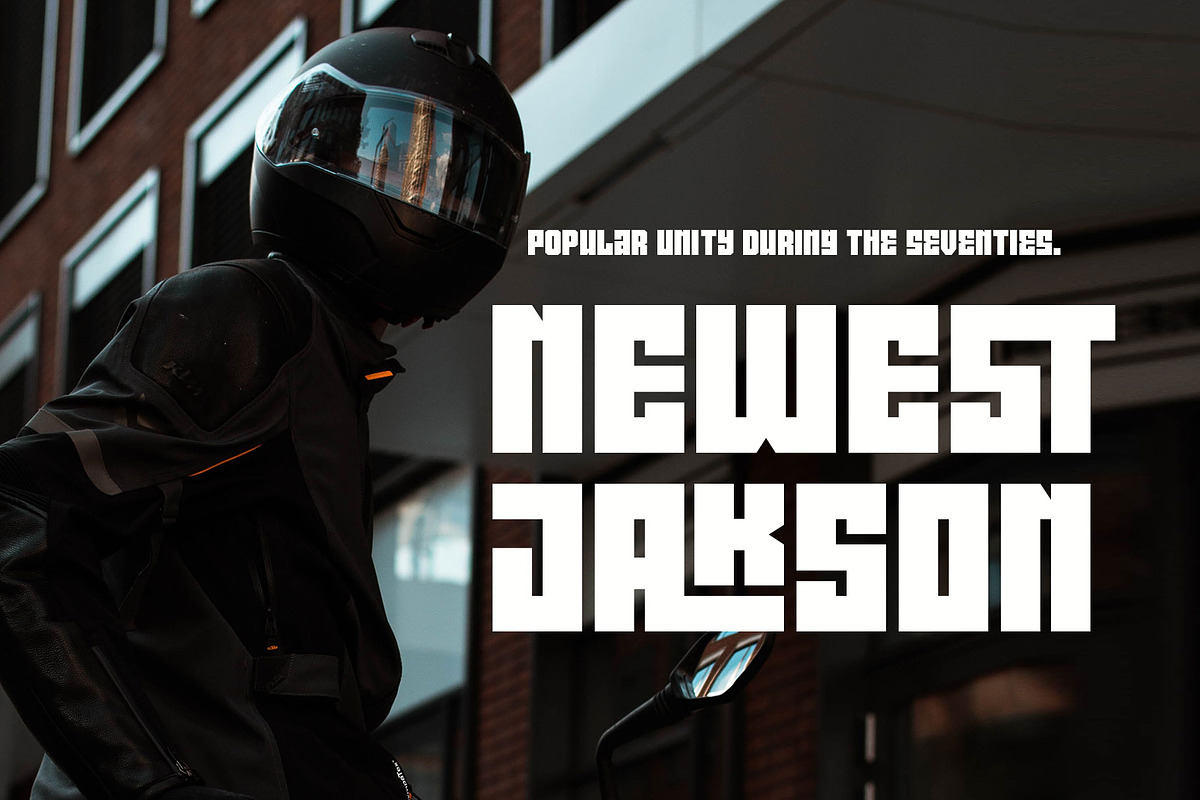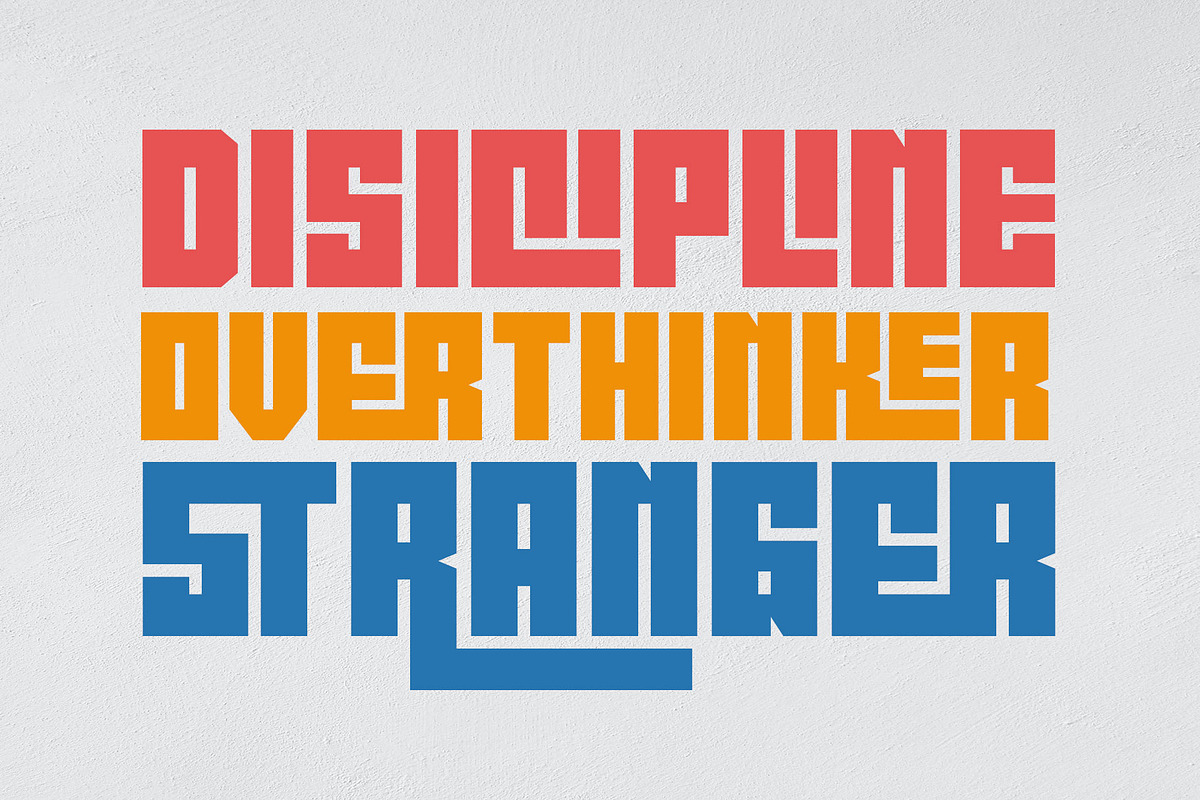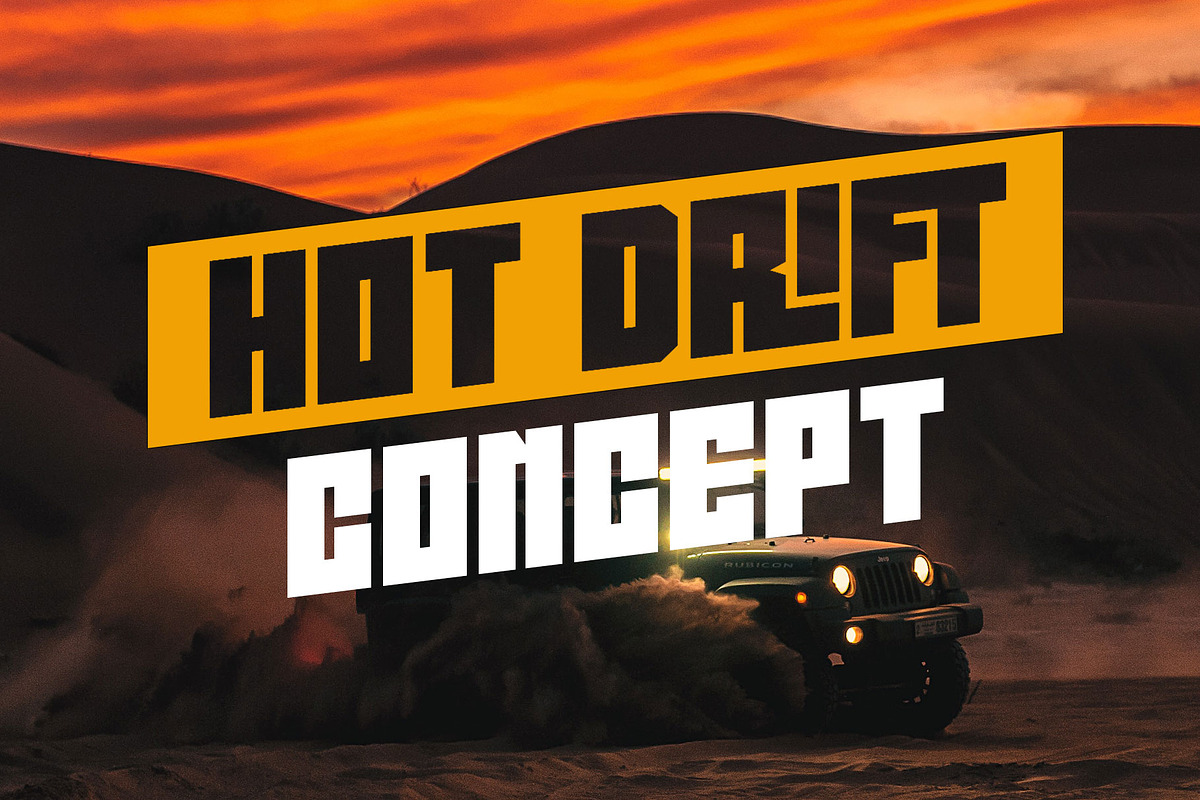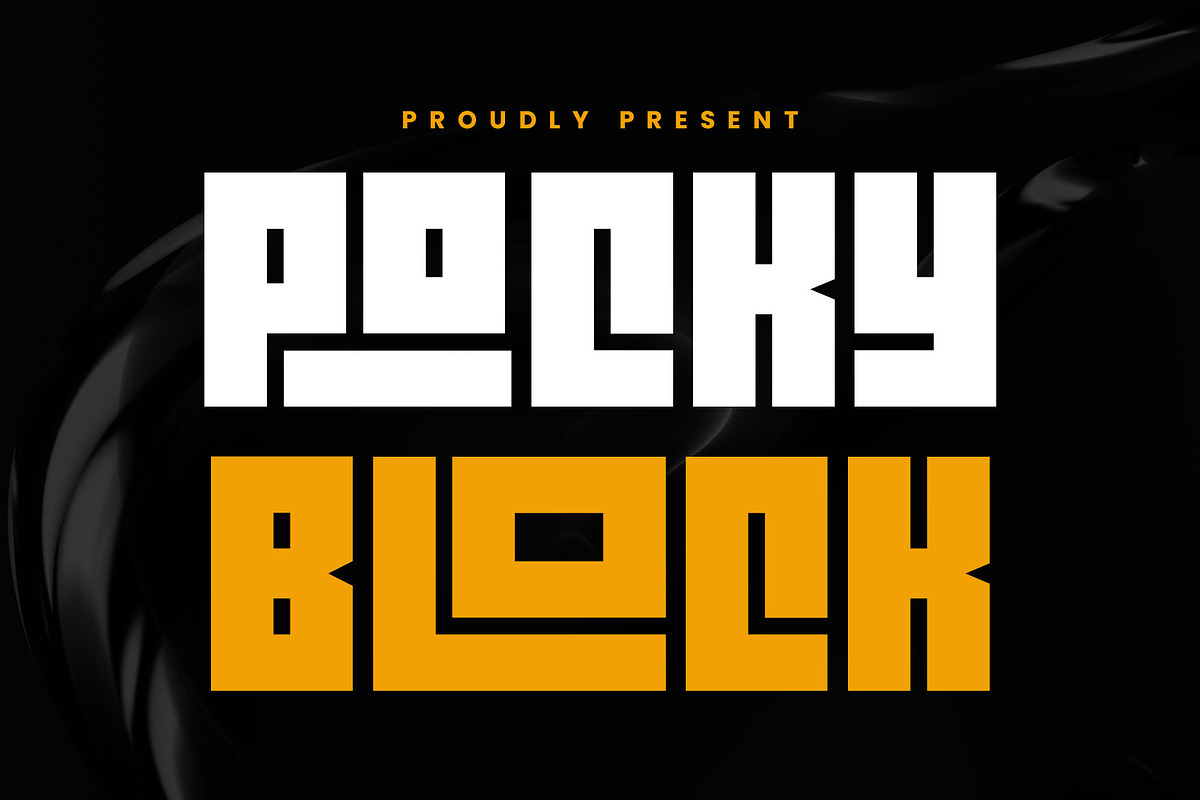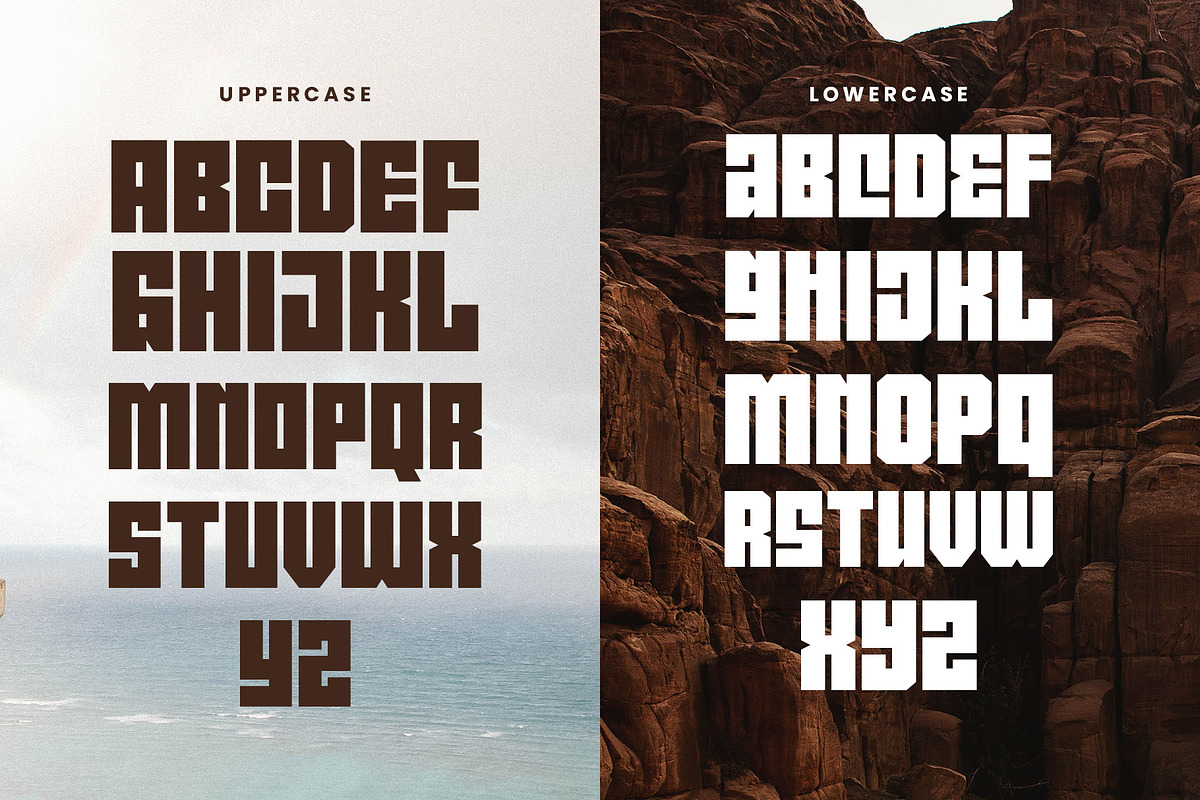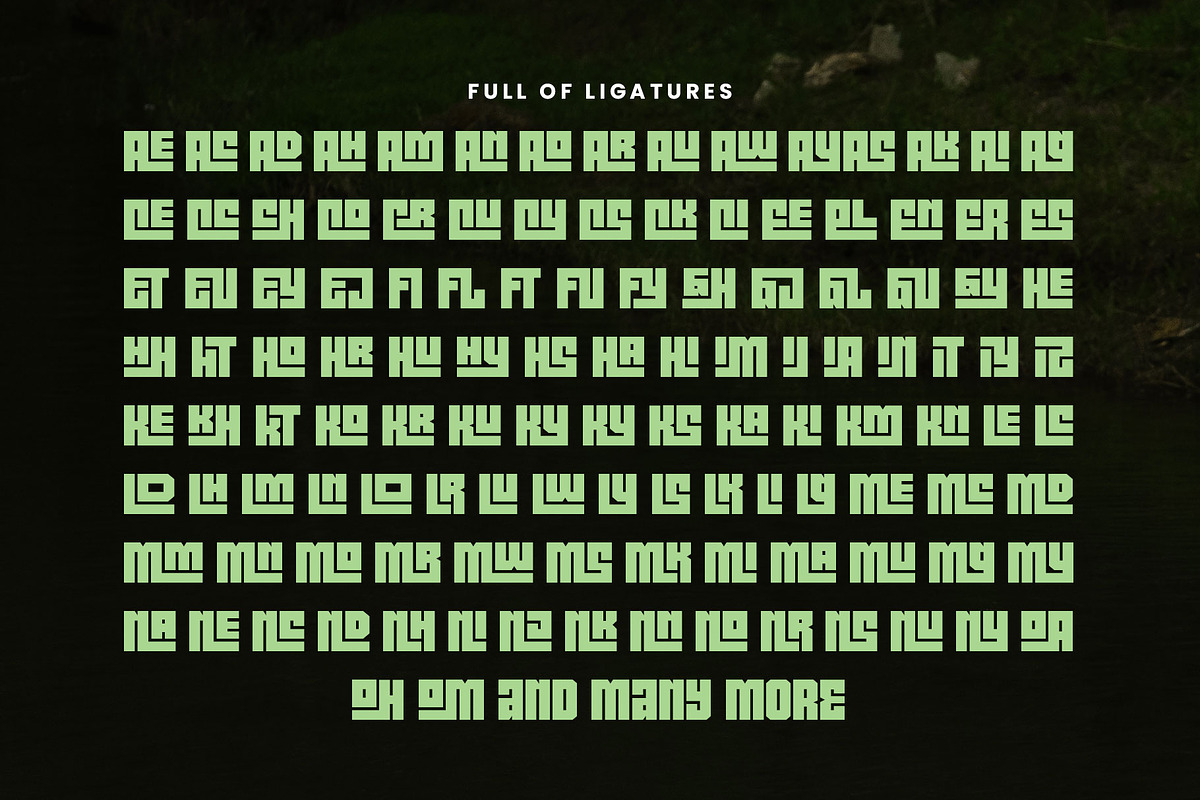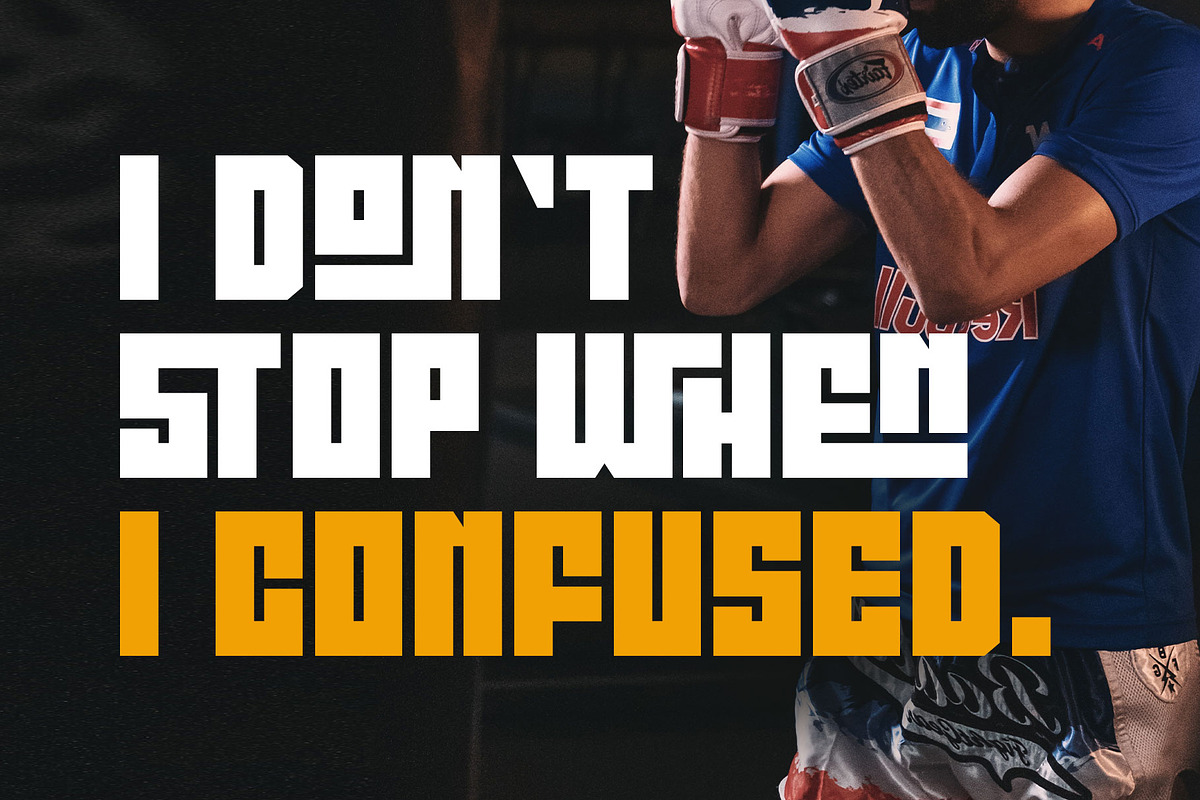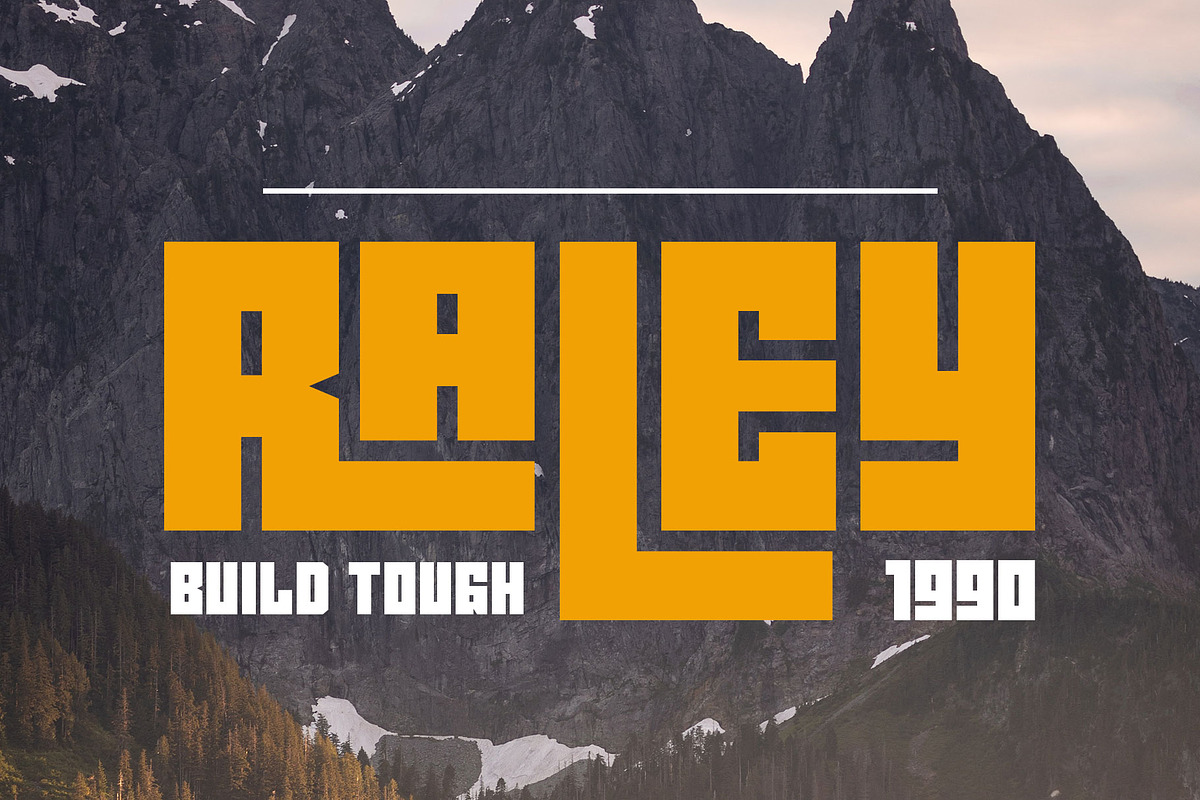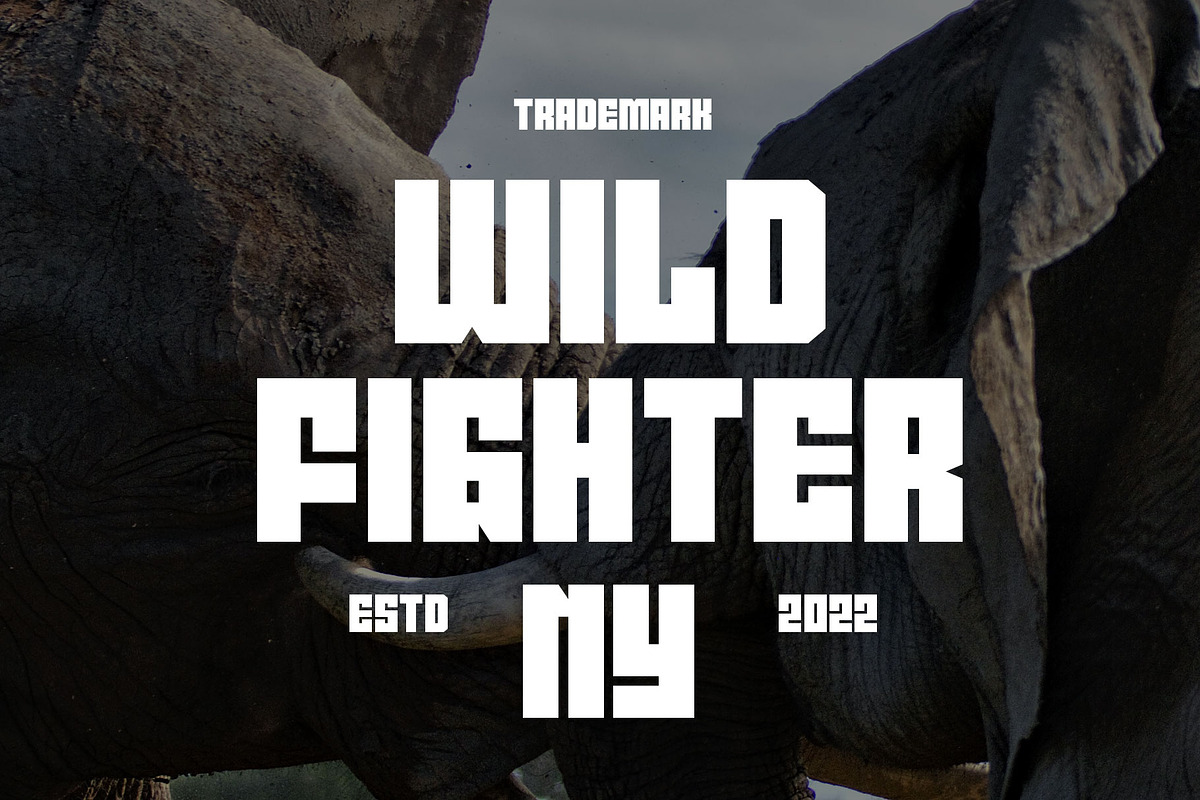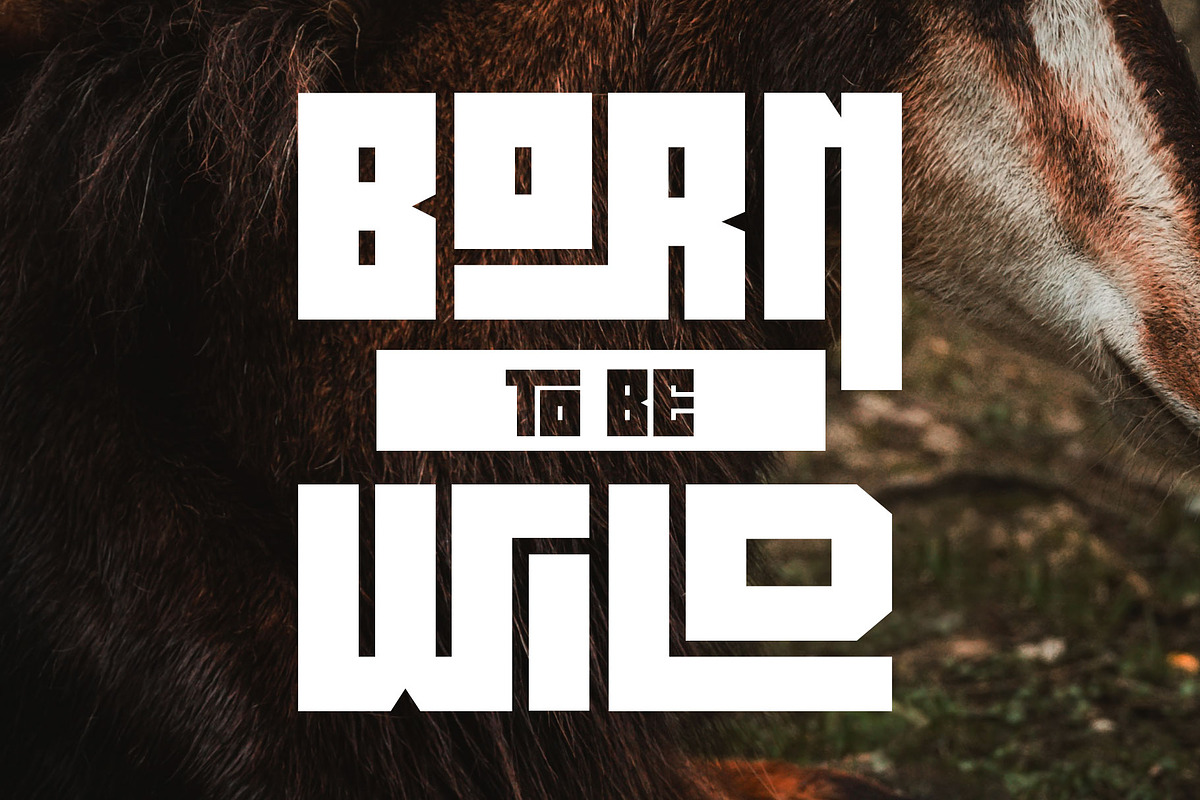
Pocky Block
Introducing Pocky Block, a font that's bold and blocky with elegant and modern design. This font exudes a sporty, assertive, and daring vibe, making it a perfect fit for designs with sports, adventure, or futuristic themes. It's great for stickers, movie posters, flyers, displays, logos, motion graphics, advertising, and more.
Pocky Block comes in two styles: Regular and Slanted. The Slanted style highlights a spirit of enthusiasm, speed, and confidence. This thick font also boasts over 100+ ligatures, allowing you to create dynamic and sophisticated letter combinations.
- All capital characters
- Numbers, punctuation & symbols
- Stylistic alternates
- Stylistic set
- 100+ Ligatures